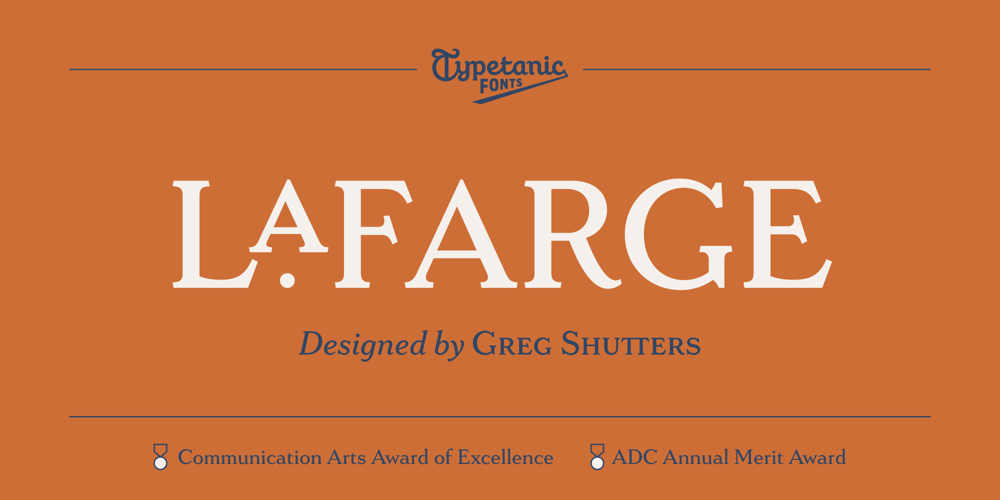
LaFarge Font Family was designed by Gregory Shutters and published by Typetanic Fonts. LaFarge contains 15 styles and family package options. LaFarge is a typeface primarily inspired by the historic mosaic titling capitals found in the New York City Subway, designed by architect Squire J. Vickers and his staff between 1915-1927. These elegant but industrial signs are characteristic of early-20th century American architectural lettering, and show an evolution of the classical Roman capitals to lower contrast, bolder serifs, and more regular character widths. The majority of this lettering still remains in subway stations today, and though elements of the style vary from sign to sign, many carry the unique features that are reflected in LaFarge: high-waisted crossbars with angled serifs, elegantly curved “R” leg, and distinctive trapezoidal serifs. LaFarge expands this style into a lower case, taking cues from contemporary typefaces like Bookman, Cheltenham, and Della Robbia.A number of typographic features are included, such as small caps, ordinal indicators / superscript letters, arrows, and a set of borders inspired by early subway tile. The result is a fashionable, architecturally-minded typeface that is just as at home on the façade of a grand public building as it is on packaging, magazines, or the web. LaFarge works well in both text and display settings, remaining readable at small sizes but showing off its elegant details in larger uses.LaFarge has received the Communication Arts Typography Award, the ADC Annual Merit Award, is included in the 2020 STA 100, and was part of designer Greg Shutters’ winning portfolio in the 2019 Type Directors Club Ascender Awards. You can download a PDF specimen of LaFarge, and also view a video of LaFarge in action.